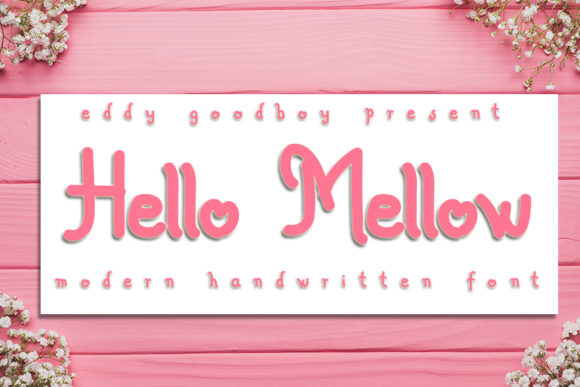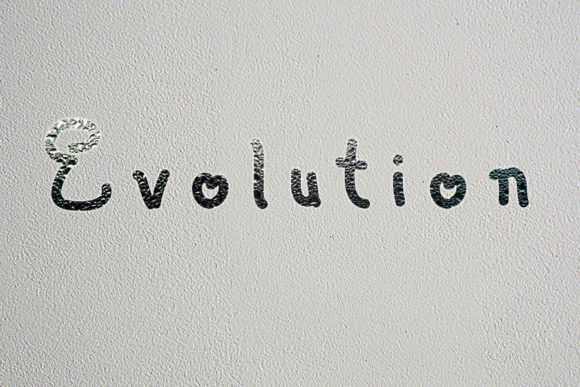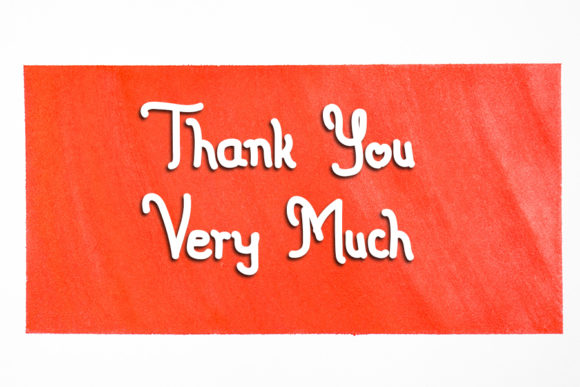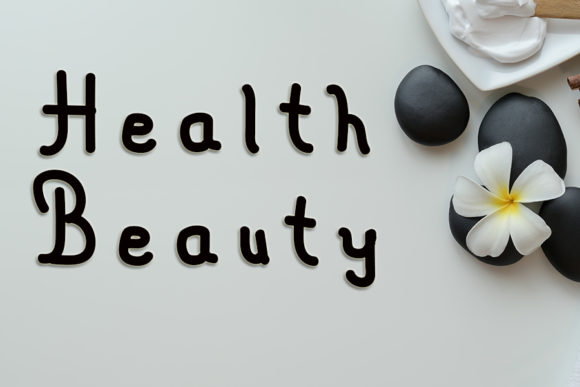
Hello Mellow Font
About Hello Mellow Font
Hello Mellow is a sweet and whimsical handwritten font. Whether you’re using it for crafting, digital designing, presentations or greeting cards making, it’s perfect!